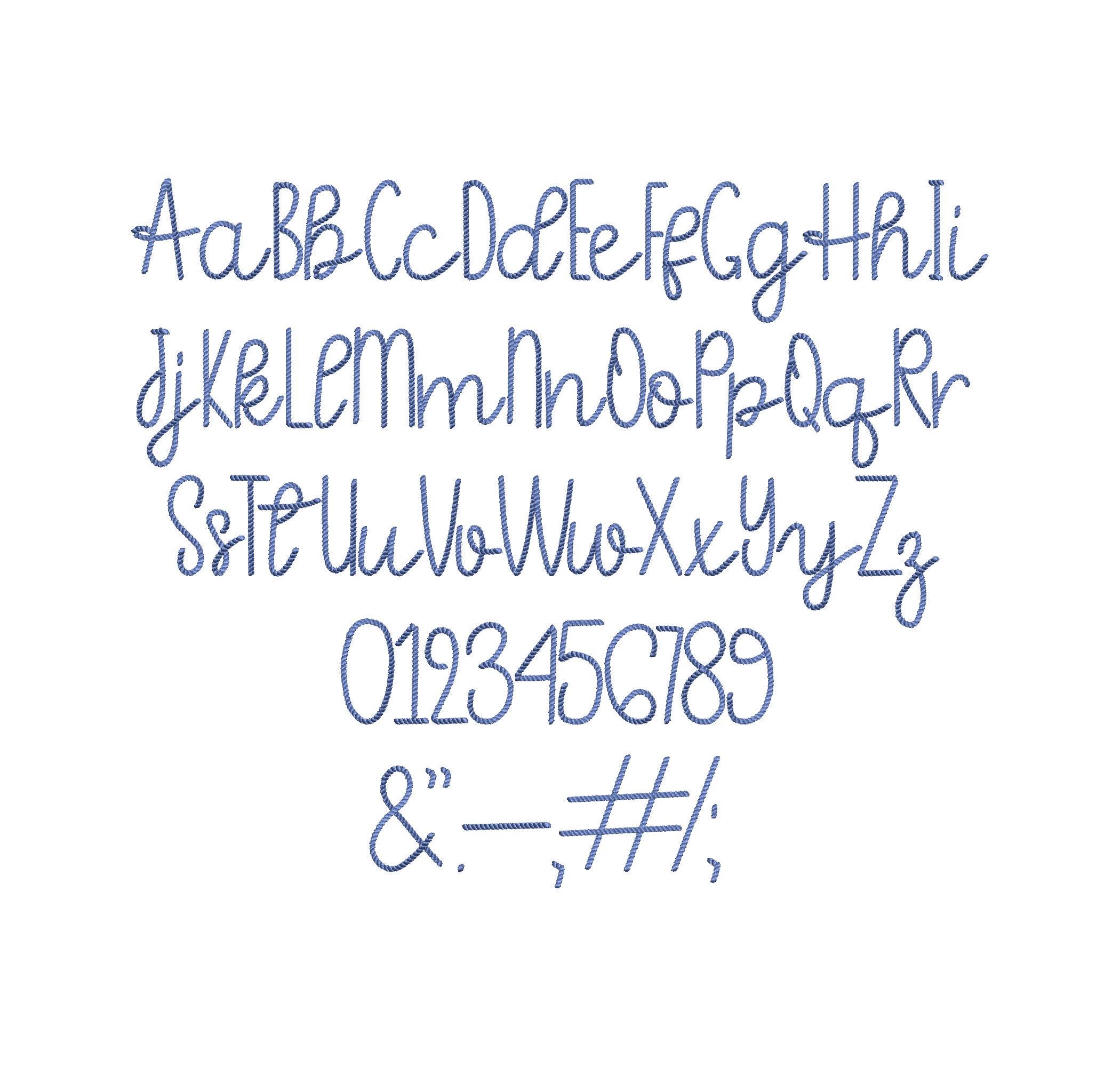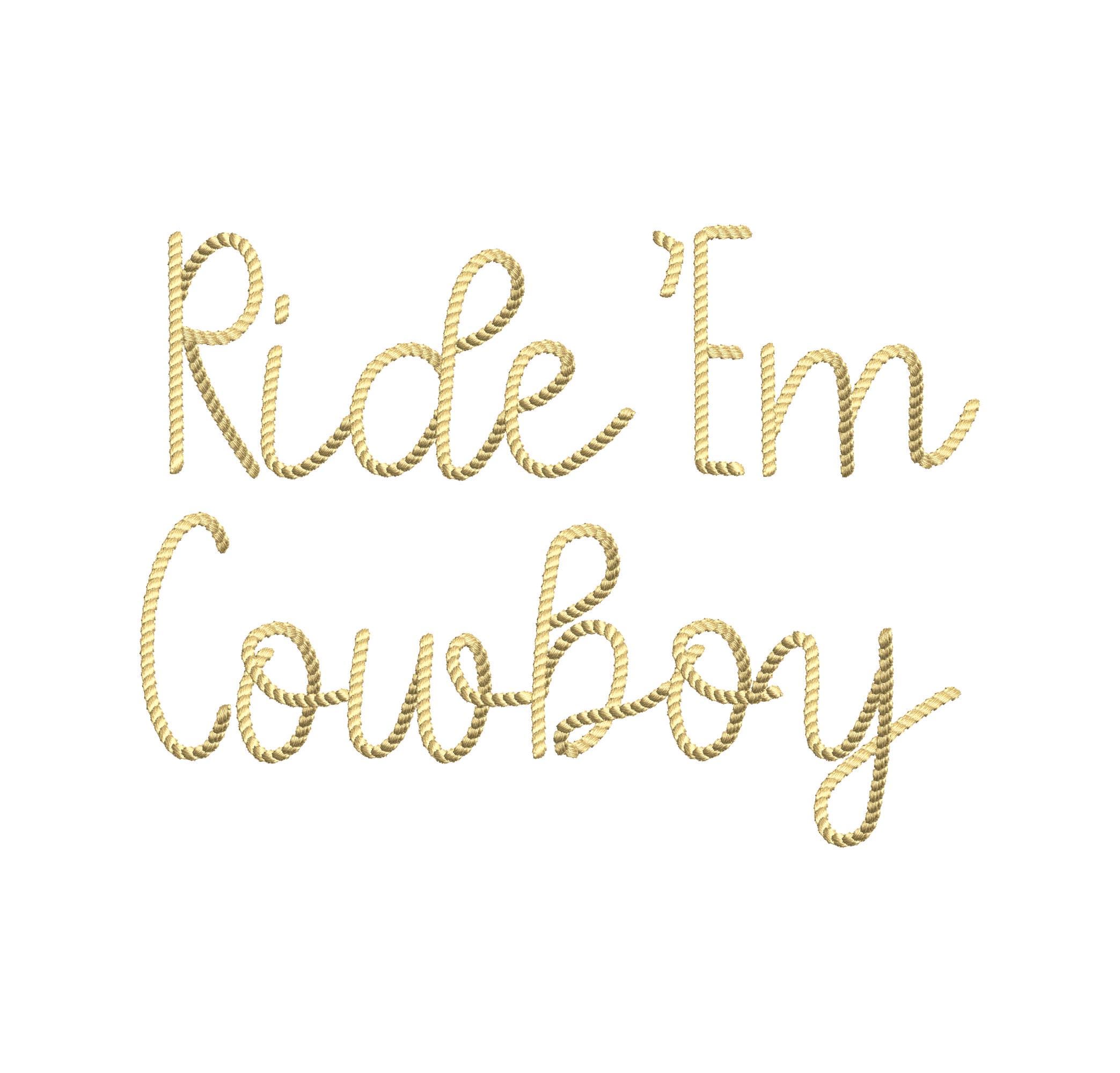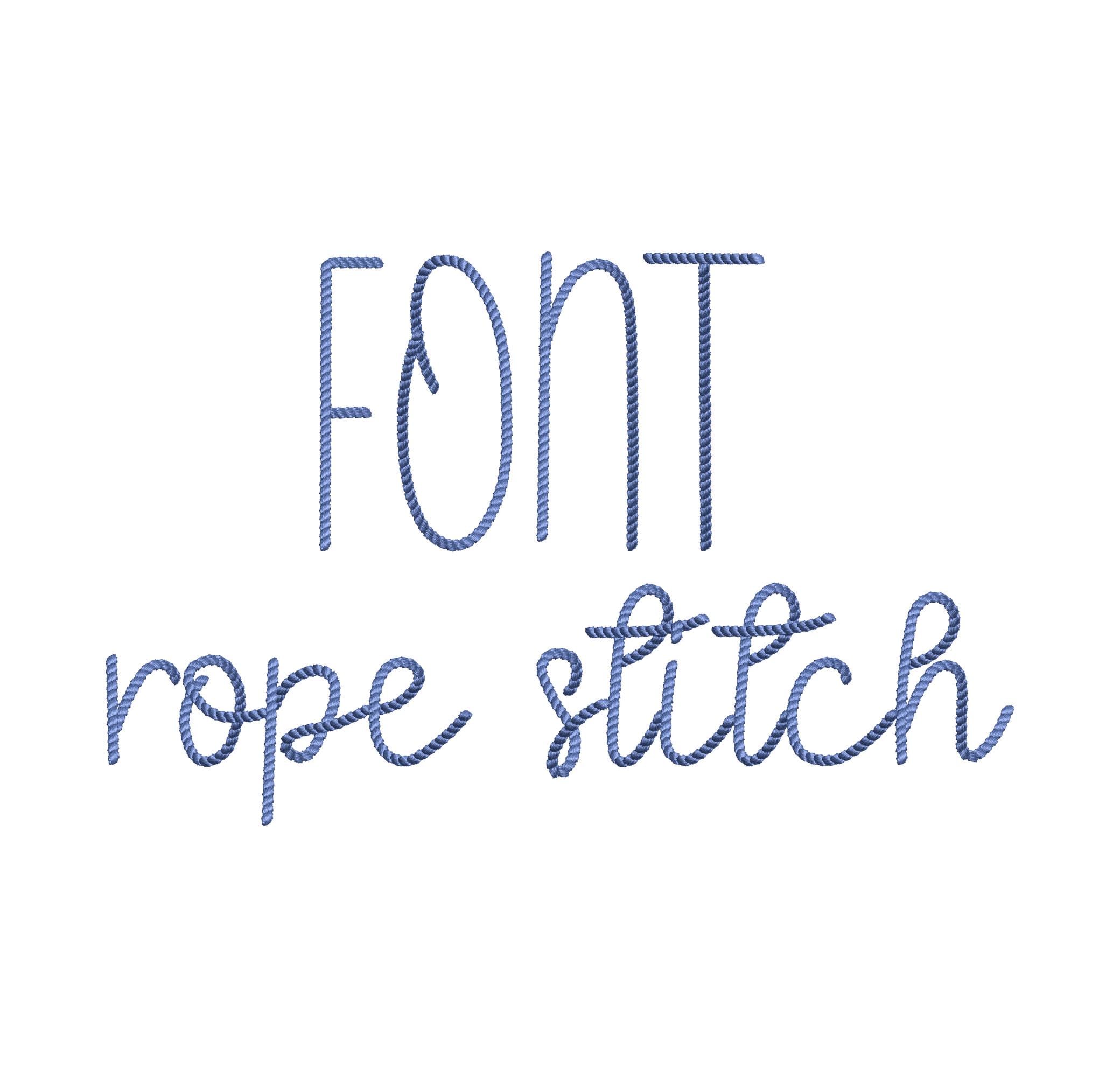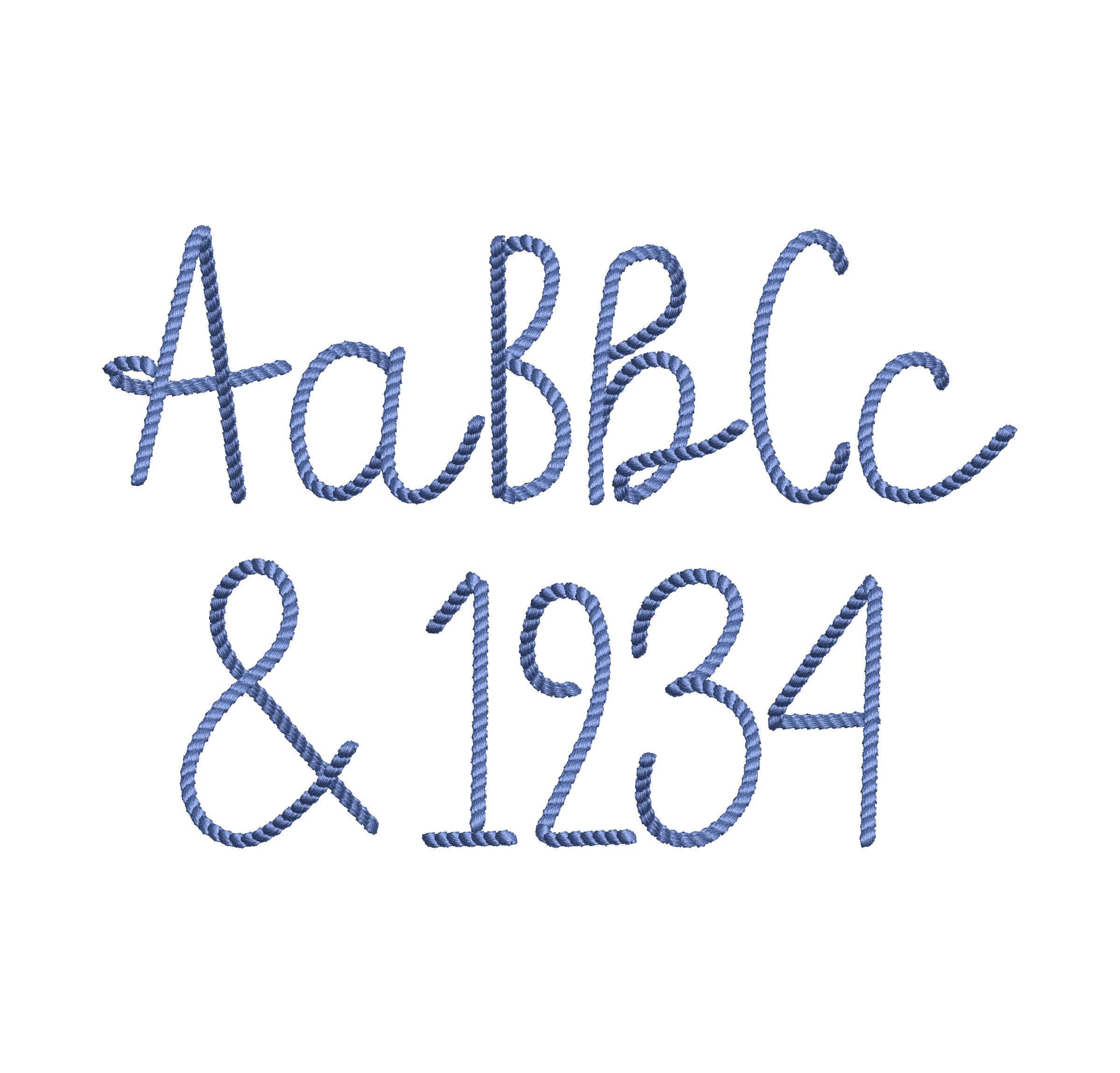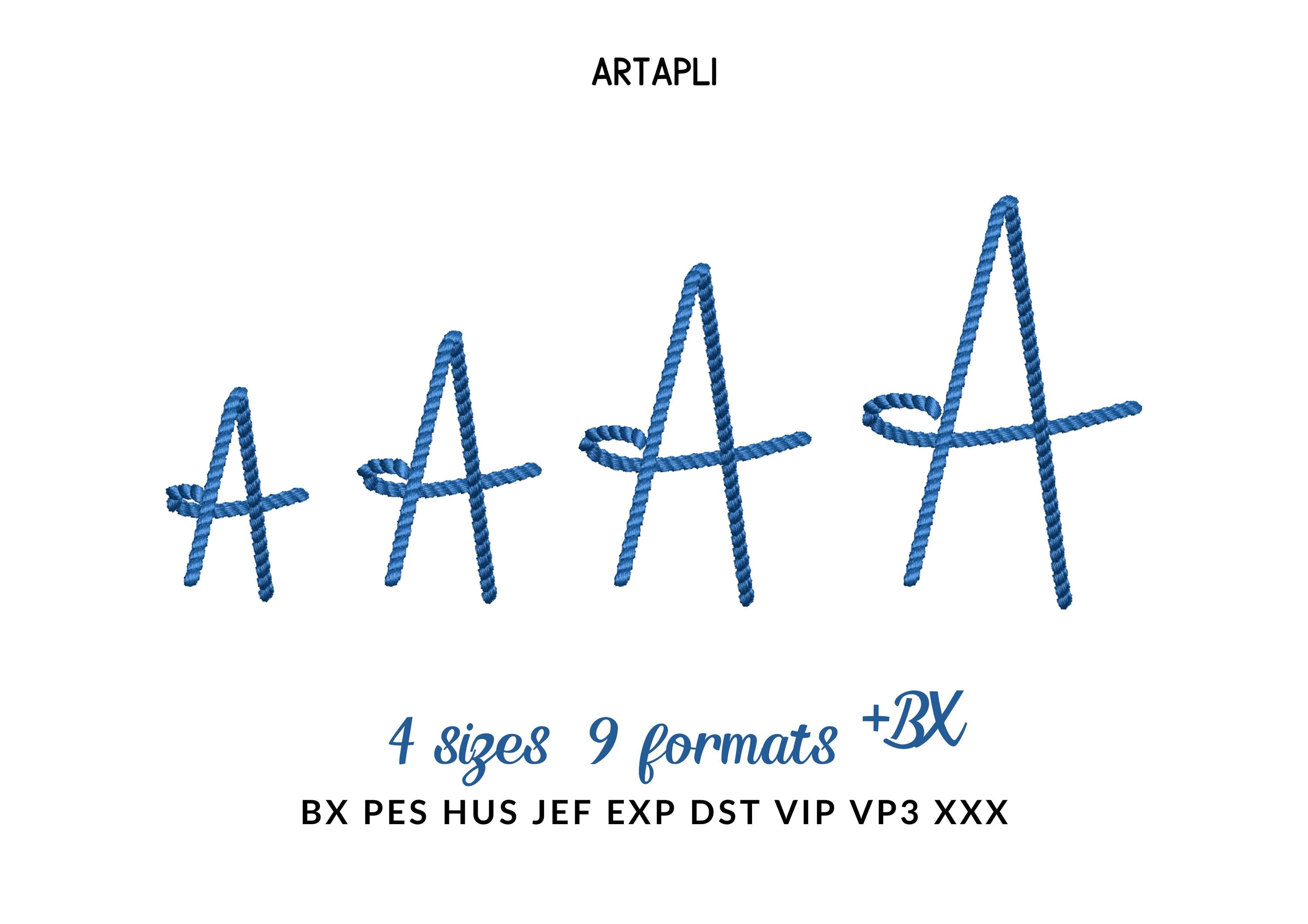
Mini Rope stitch FONT rope textured Alphabet Monogram Machine Embroidery Designs handwritten Cowboy Font sizes 1.2 up to 2.3 inch BX
Entire alphabet A-Z uppercase and lowercase letters, numbers 0-9, and punctuation.